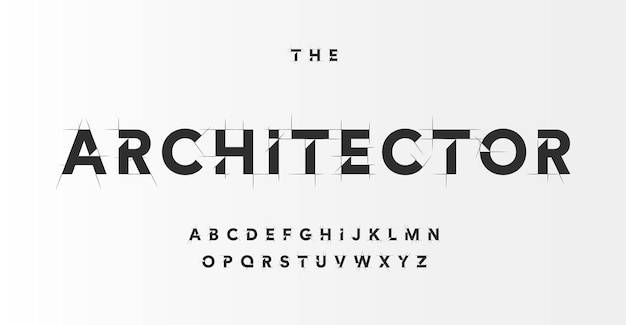
architectural project font technical draw style alphabet geometrical typography wireframe letters typographic design with draft strokes for architecture logo and headline isolated vector typeset